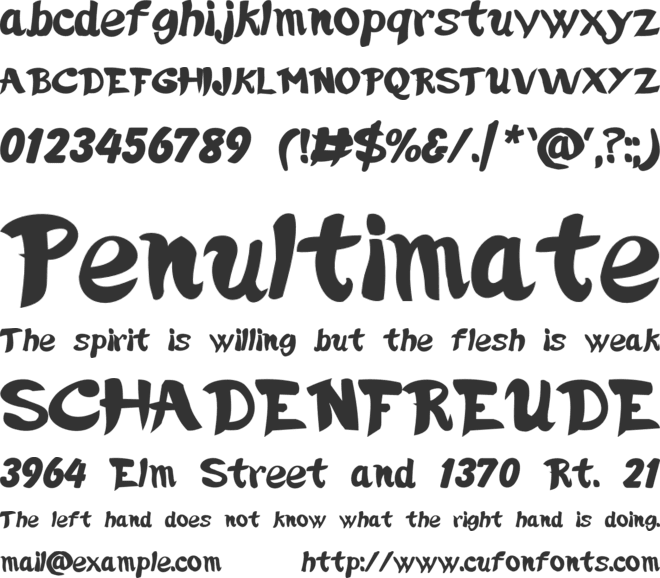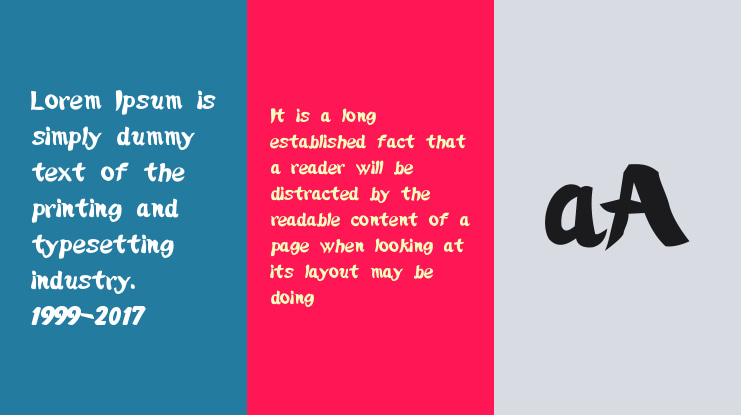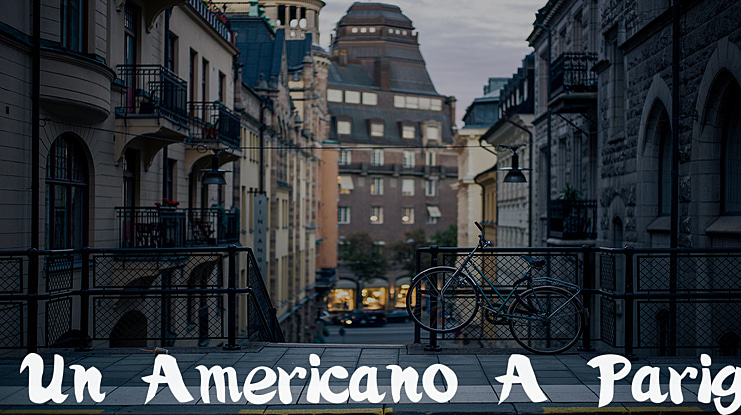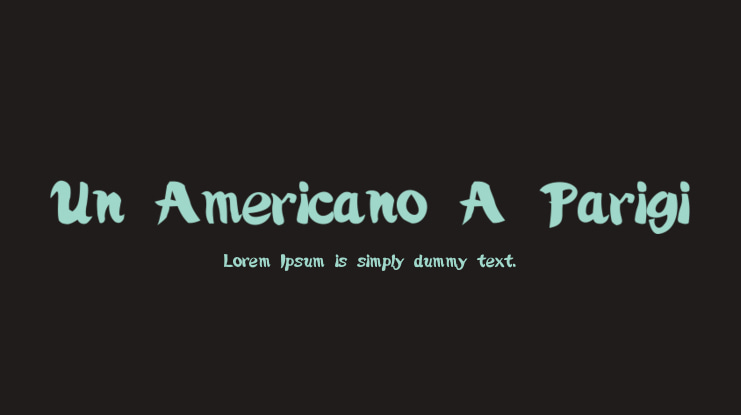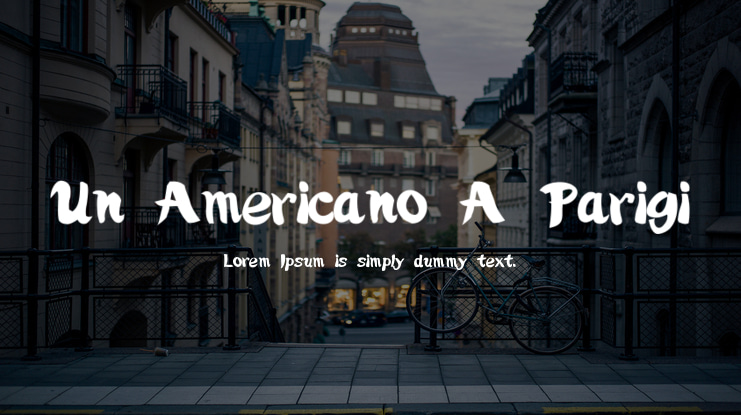
Un Americano A Parigi Font
AN AMERICAN IN PARIS font: directly from the Best movie by Vincente Minnelly, with GENE KELLY and LASLIE CARON,
the original font for all lovers.